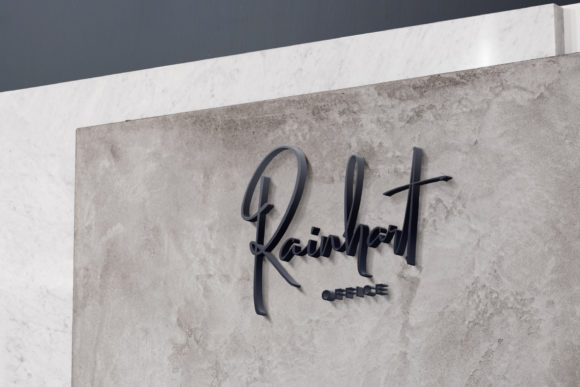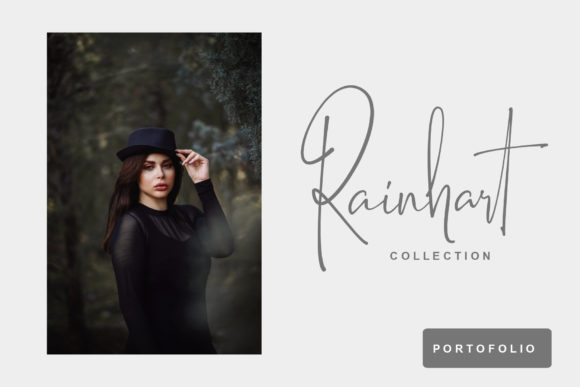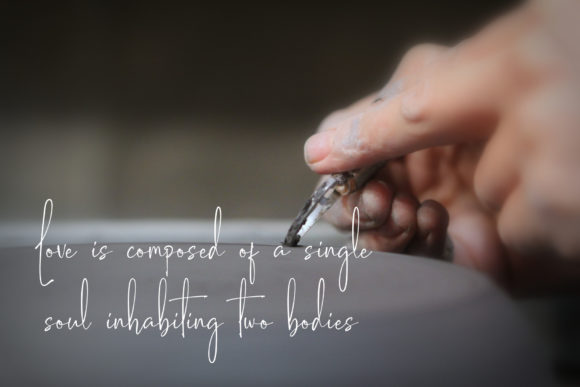
Introduction to Rainhart Font
Rainhart is an elegant script font, that features a very delicate and classy look.
Not too thin and not too thick, balanced and varied, Rainhart was designed to enhance the beauty of your projects .